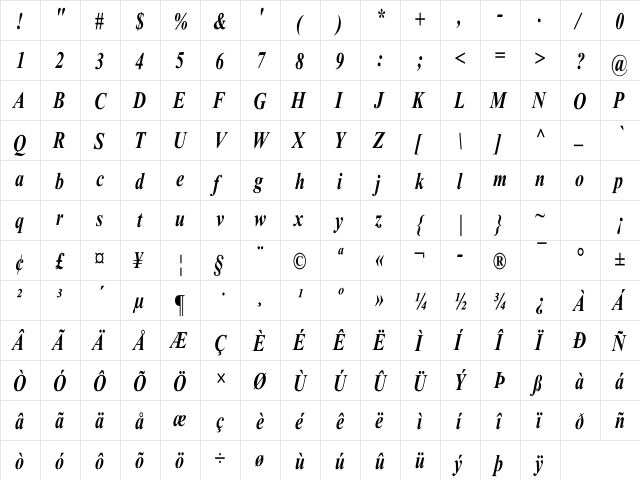
Times Roman Cn bold italic Bold Italic
Design Context for Times Roman Cn bold italic Typeface
Times Roman Cn bold italic takes a measured approach to typography — its balanced proportions and neutral character make it a reliable workhorse for both digital and print work. Its italic angle brings a sense of urgency and motion to the letterforms. The heavy weight commands attention and anchors typographic hierarchies.
Pro Tip: Use Times Roman Cn bold italic for emphasis, pull quotes, and subheadings where its slanted energy can add rhythm to the layout.